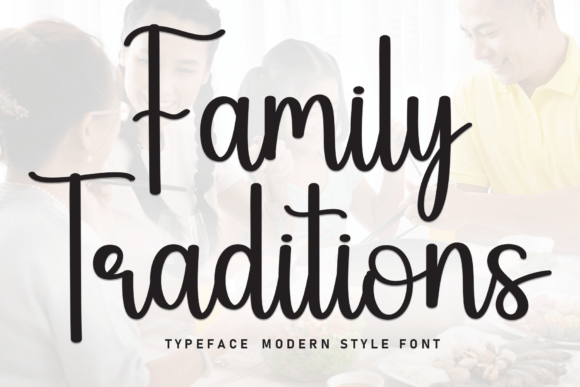
Introducing Family Traditions Font, the enchanting script font that weaves a tapestry of charm and elegance into your digital designs. This handcrafted masterpiece, conjured by the creative genius of William Jhordy, is a symphony of flowing lines, delicate curves, and playful characters that dance across your screen, leaving a trail of visual delight.
Step into a world where nostalgia and modernity intertwine, where the warmth of handwritten letters mingles with the crisp precision of digital artistry. Family Traditions Font is not just a collection of glyphs; it's an invitation to embark on a journey of self-expression and creativity.
With its endearing charm, Family Traditions Font transforms ordinary words into heartfelt messages, capturing the essence of love, friendship, and the enduring bonds that unite us. Its graceful strokes evoke a sense of intimacy and authenticity, making it the perfect choice for personal correspondence, heartfelt notes, and heartfelt greetings.
But Family Traditions Font is more than just a pretty face. Its versatility knows no bounds, adapting seamlessly to a myriad of design projects. From whimsical wedding invitations that exude romance to playful birthday cards that spark joy, this font adds a touch of magic to every creation.
Unleash your inner artist and let Family Traditions Font guide you through a world of limitless possibilities. Its graceful curves will elevate your designs, adding a touch of sophistication to logos, branding materials, and social media posts. Its playful spirit will infuse your creative projects with an irresistible charm, captivating your audience and leaving a lasting impression.
And the best part? Family Traditions Font thrives on diversity, shining brightly against both light and dark backgrounds. Its inherent beauty remains unyielding, regardless of the canvas you choose.
So, why settle for ordinary fonts when you can embrace the extraordinary? Family Traditions Font is your key to unlocking a world of captivating designs, heartfelt expressions, and boundless creativity.